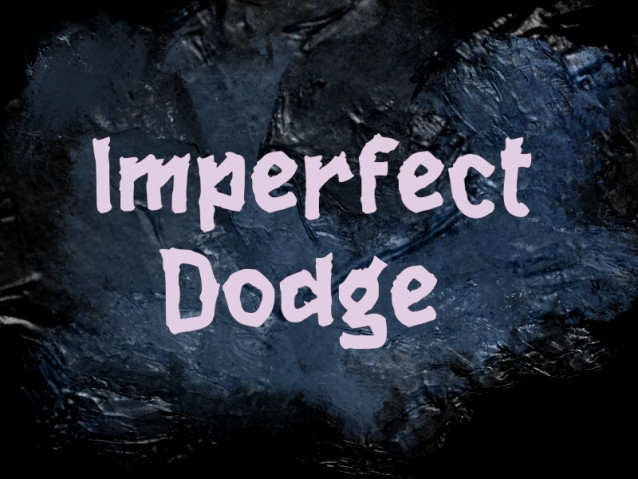
Imperfect Dodge Font
Imperfect Dodge Font is a simple and modern display font suitable for quotes, logos, headings, titles, and many more. Use it on any of your creative projects, and your designs will become outstanding!